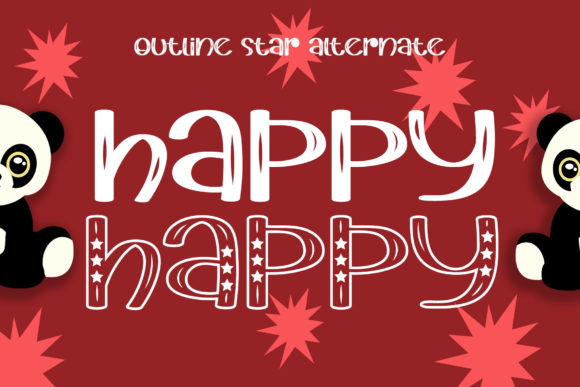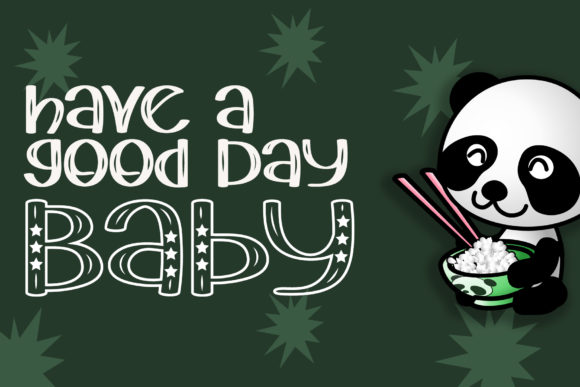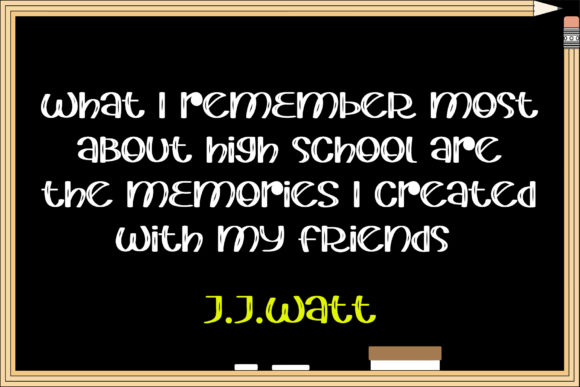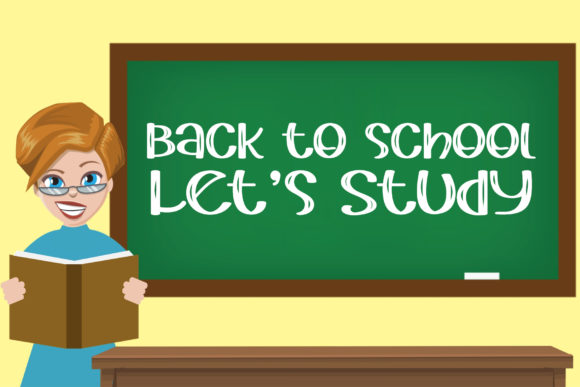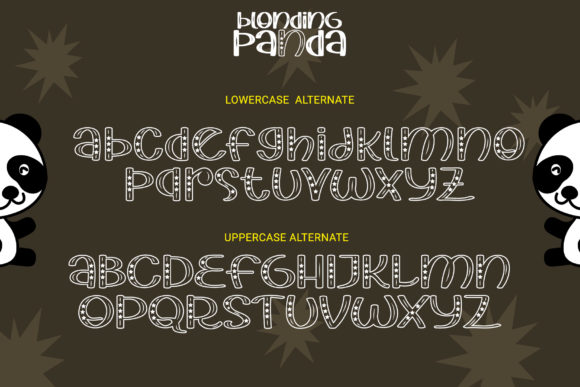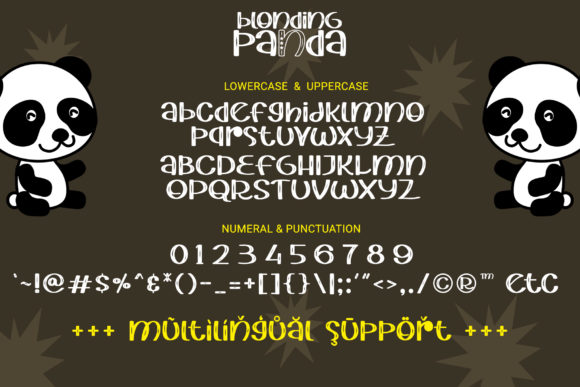
Discover the Quirky Charm of Blonding Panda Font
Have you ever stumbled upon a font that makes your design sparkle with cuteness? For many designers, that moment is a game-changer. It’s like finding the perfect brush stroke in a painting or the ideal melody in a song – it elevates the entire piece to a new level of magic. That’s exactly what the Blonding Panda Font does. With its endearing, whimsical charm, this font is sure to radiate the cuteness in your design.
Blonding Panda Font is a quirky, cute font designed to add a touch of playfulness to any project. Whether you’re creating a children’s book, a logo, or a social media post, this font is the perfect companion to help you convey your message in a visually appealing way. Its value lies in its versatility and ability to add a personal touch to your designs, making it a must-have for any designer looking to add a bit of whimsy to their work.
Key Features of Blonding Panda Font
- Unique Characteristics: Blonding Panda Font features a distinctive, hand-drawn style with bold lines and rounded edges, giving it a playful and modern feel.
- Style Variations: Blonding Panda Font comes in several styles, including Regular, Bold, Italic, and Bold Italic, providing flexibility for designers to create a range of visual effects.
Blonding Panda Font Review
First off, I think it’s great that the Blonding Panda Font is trying to break the mold with its unique design. It’s not your run-of-the-mill, generic font, and that’s definitely a plus. ✨ I love the quirky, hand-drawn feel it gives off, and it’s perfect for those who want a font that stands out from the crowd.
One thing that does work well is its versatility. It can be used for a variety of purposes, from logos and branding to body text and headings. The font also has a wide range of weights, from light to bold, which makes it easy to use in different contexts.
Now, let’s talk about the limitations. ⚠️ One thing that’s a bit of a letdown is the readability at smaller font sizes. It can get a bit fuzzy and hard to read, especially for those with lower vision. Additionally, the font may not be the best choice for large blocks of text, as it can start to feel overwhelming and difficult to read.
Key Points:
- Unique, hand-drawn design that stands out from the crowd ✨
- Versatile font that can be used for various purposes
- Wide range of weights, from light to bold
- May not be the best choice for small font sizes or large blocks of text ⚠️
Overall, I think the Blonding Panda Font is a great choice for those who want a font that’s a bit unconventional and eye-catching. However, it may not be the best choice for everyone, especially those who prioritize readability and clarity.
Use Blonding Panda Font in bold combinations to create eye-catching headlines.
Combine Blonding Panda Font with other fonts to create a unique and stylish design.
Use Blonding Panda Font for:
- Marketing materials, such as brochures and flyers.